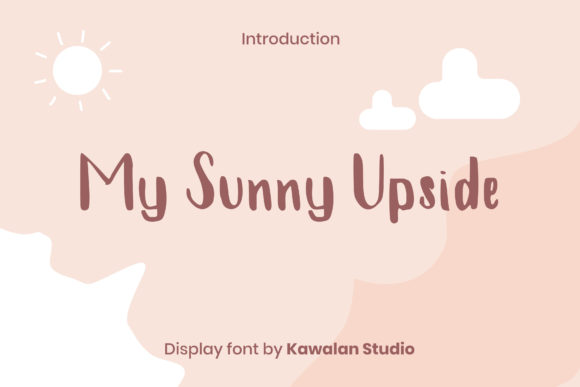
Introducing My Sunny Upside Font - A Script Font That Radiates Warmth and Charm
Welcome to the world of My Sunny Upside, a script font that captures the essence of sunshine, warmth, and cheerful bliss. Its unique handwritten style exudes a touch of whimsy and playfulness, making it the perfect choice for those seeking to create designs that evoke joy and positive vibes.
Step into a world where your words dance gracefully across the page, adorned with the vibrant strokes of My Sunny Upside. This font is not just a collection of letters; it's an expression of creativity, an embodiment of happiness waiting to be unleashed upon your digital masterpieces.
Designed with meticulous care and attention to detail, My Sunny Upside seamlessly blends readability with visual allure. Its flowing script style lends an organic feel to your projects, adding a touch of authenticity and warmth that captivates the hearts of your audience.
Whether you're crafting invitations for a special occasion, creating eye-catching social media posts, or designing heartwarming branding materials, My Sunny Upside is your trusted companion. Its versatile nature adapts effortlessly to various design aesthetics, making it a font that transcends trends and remains eternally charming.
Imagine your designs blooming with radiance, your words radiating positivity, and your creations leaving an indelible mark on those who encounter them. My Sunny Upside is more than just a font - it's an investment in happiness, a gateway to a creative world brimming with joy and laughter.
Join the growing community of designers and creatives who have embraced My Sunny Upside as their go-to font for creating designs that spread happiness like wildfire. Let your imagination soar, let your creativity flow, and let My Sunny Upside be your guide on this magical journey of visual storytelling.